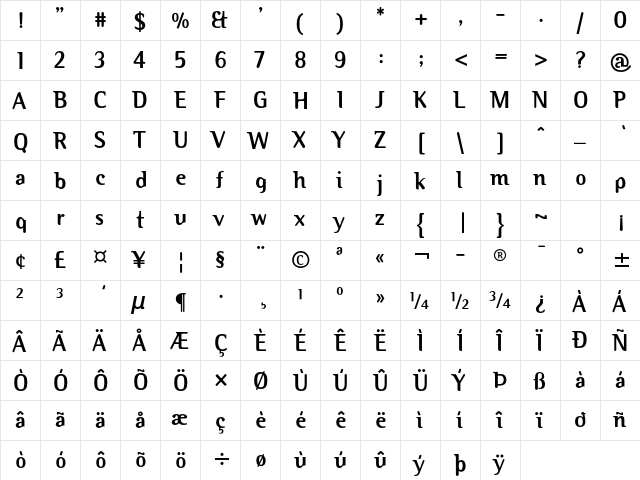
Binary ITC Std Bold
| Designer | Mauricio Reyes |
Design Context for Binary ITC Std Typeface
Binary ITC Std takes a measured approach to typography — its balanced proportions and neutral character make it a reliable workhorse for both digital and print work. Its bold stroke weight gives it real presence on the page.